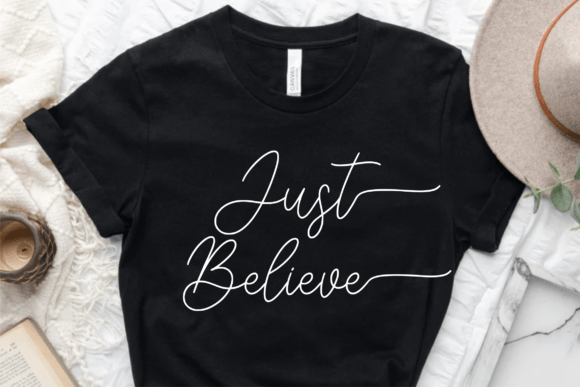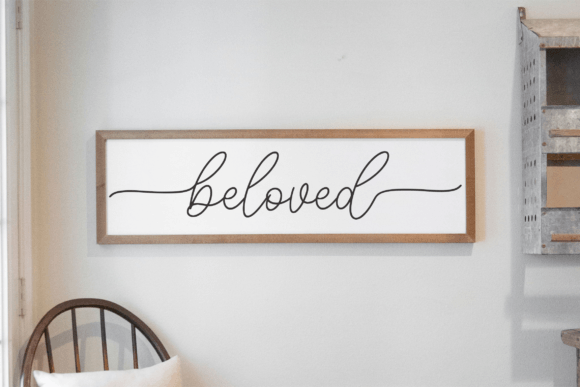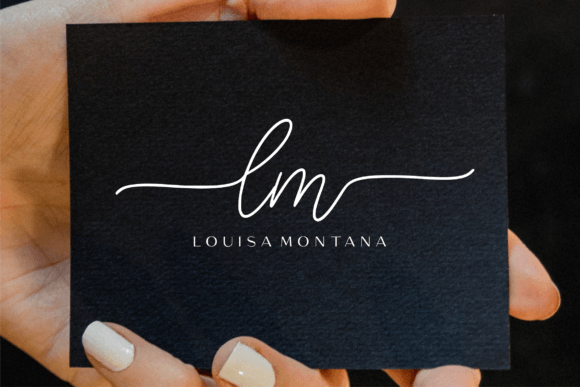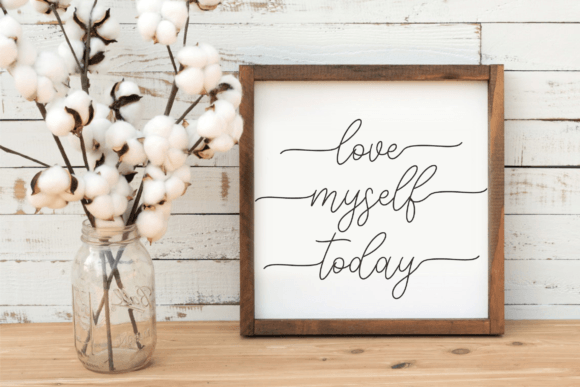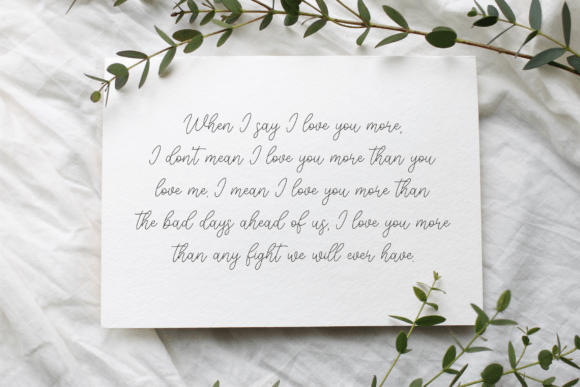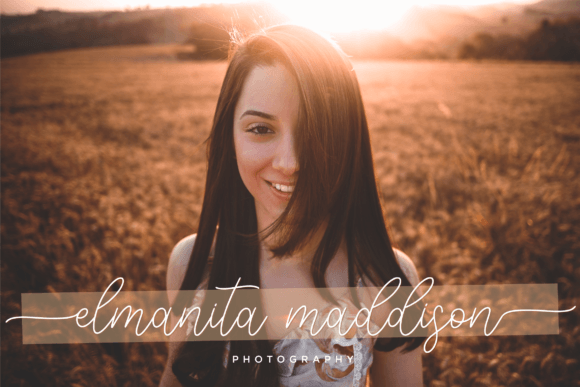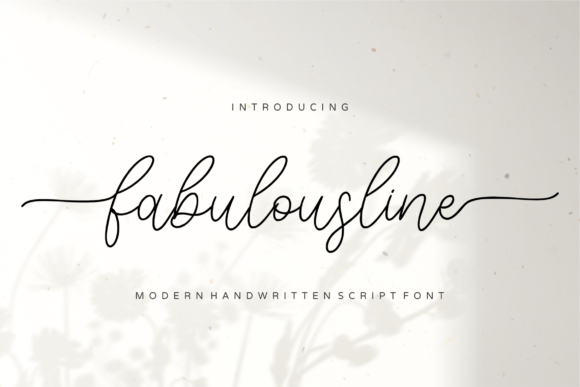
Fabulousline Font: Elevate Your Designs with a Modern Handwritten Touch
In the world of design, fonts play a crucial role in conveying messages, evoking emotions, and creating a lasting impression. For designers, crafters, and DIY enthusiasts, finding the perfect font can be a daunting task. However, if you’re looking for a modern handwritten font that can elevate your designs, look no further than Fabulousline. This stunning font is perfect for product packaging, branding projects, magazines, social media posts, weddings, or simply to add a personal touch to your creations.
What Makes Fabulousline Special?
Fabulousline is a modern handwritten font that boasts a unique and elegant style, making it perfect for a wide range of design applications. Its versatility and flexibility make it an ideal choice for designers who want to add a personal touch to their work. Whether you’re creating product packaging, branding materials, or social media posts, Fabulousline is sure to impress.
Key Features of Fabulousline Font
- Modern Handwritten Style: Fabulousline features a modern handwritten style that is both elegant and sophisticated.
- Multilingual Support: Fabulousline supports multiple languages, making it a great choice for designers who work with international clients.
- High-Quality Design: The font is designed with high-quality craftsmanship, ensuring that it looks great in any design application.
Use Cases for Fabulousline Font
Fabulousline is an incredibly versatile font that can be used in a wide range of design applications, including:
- Product Packaging: Add a personal touch to your product packaging with Fabulousline’s elegant and modern handwritten style.
- Branding Projects: Create stunning branding materials, such as logos, business cards, and brochures, with Fabulousline.
- Magazines and Editorials: Use Fabulousline to add a touch of elegance to your magazine or editorial design.
- Social Media Posts: Elevate your social media posts with Fabulousline’s modern and stylish font.
- Weddings and Events: Create beautiful wedding invitations, programs, and decorations with Fabulousline.
Why Designers and Crafters Love Fabulousline
Fabulousline has quickly become a favorite among designers and crafters due to its unique and elegant style. Here are just a few reasons why:
- Professional Results: Achieve professional-looking results with Fabulousline’s high-quality design.